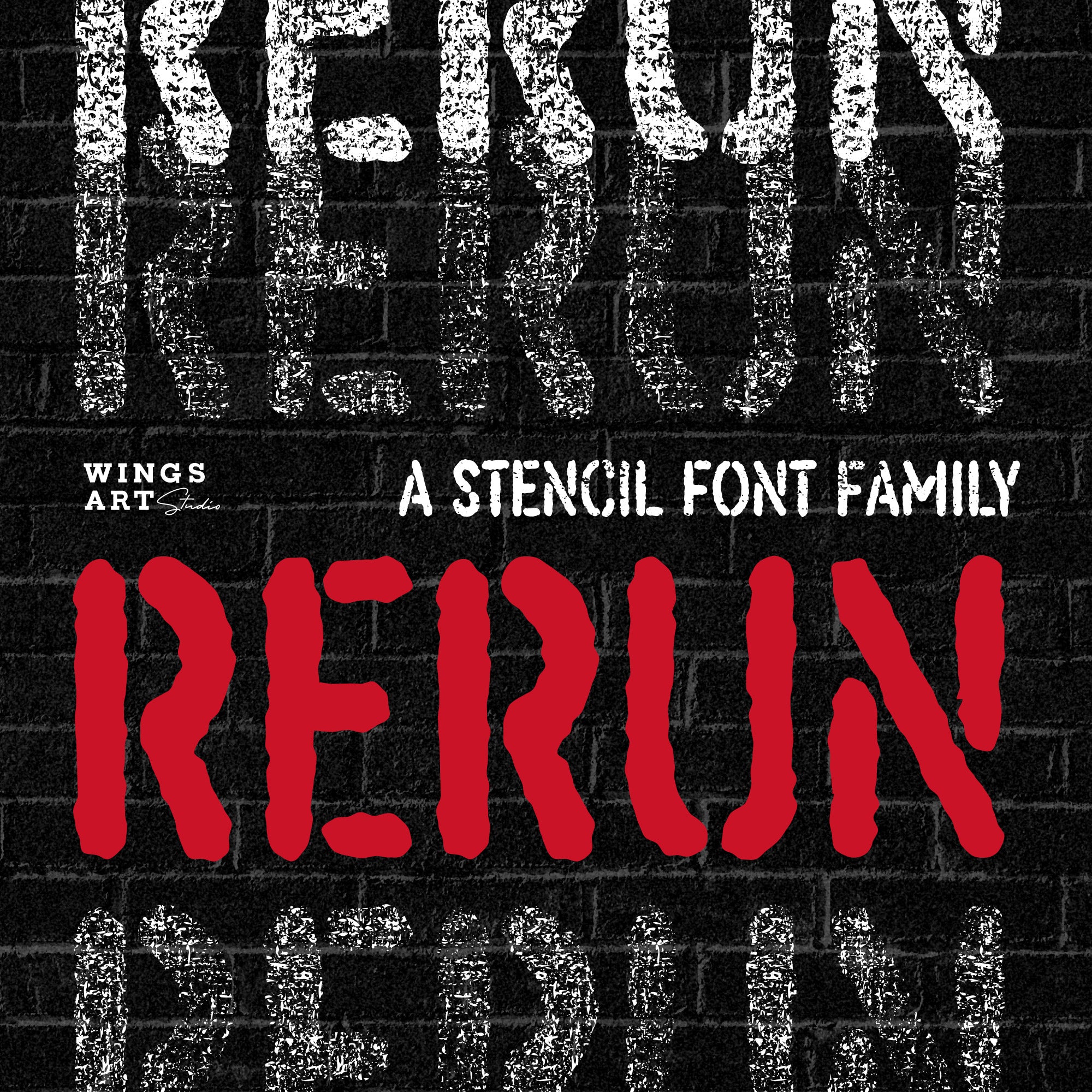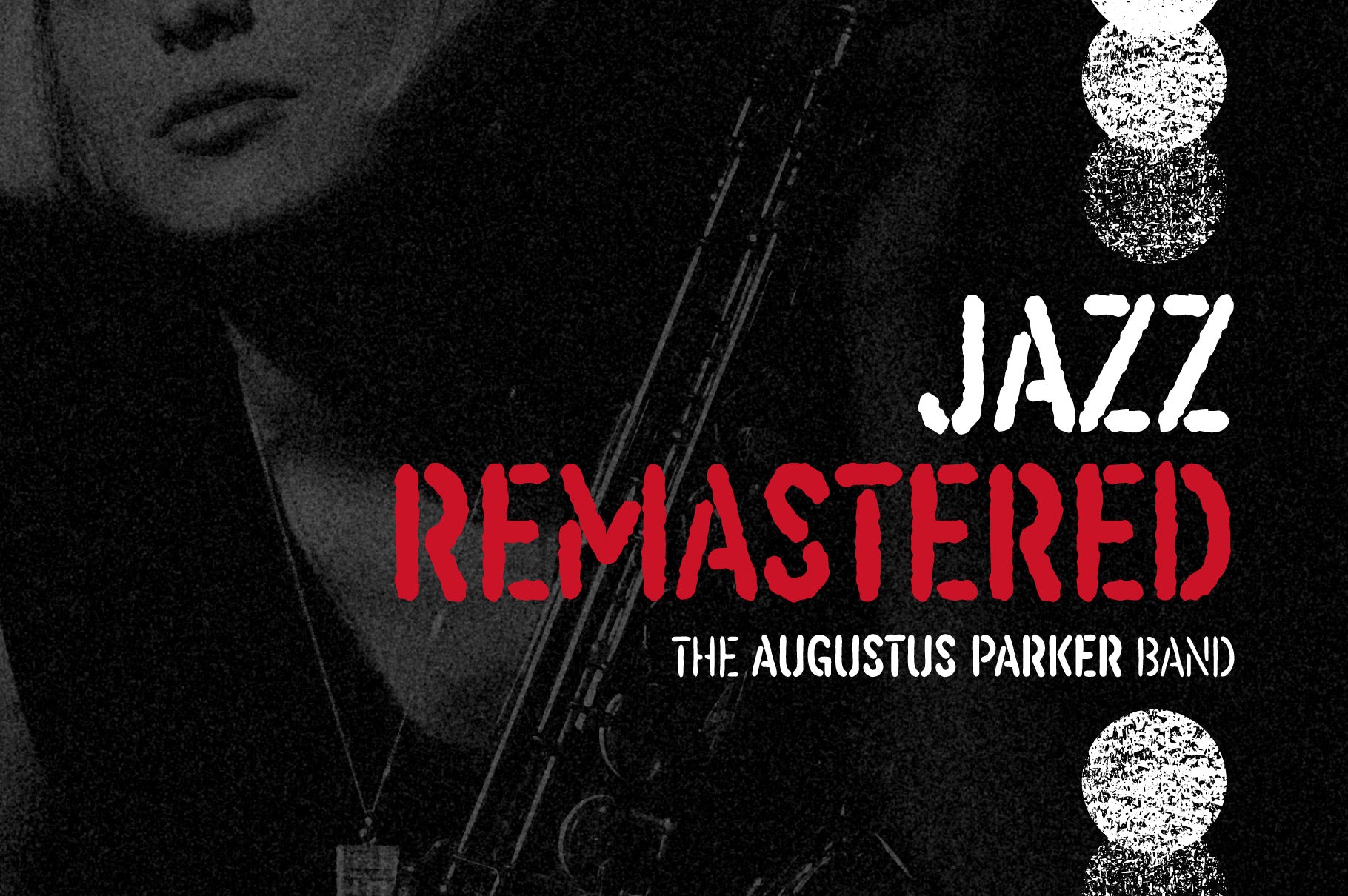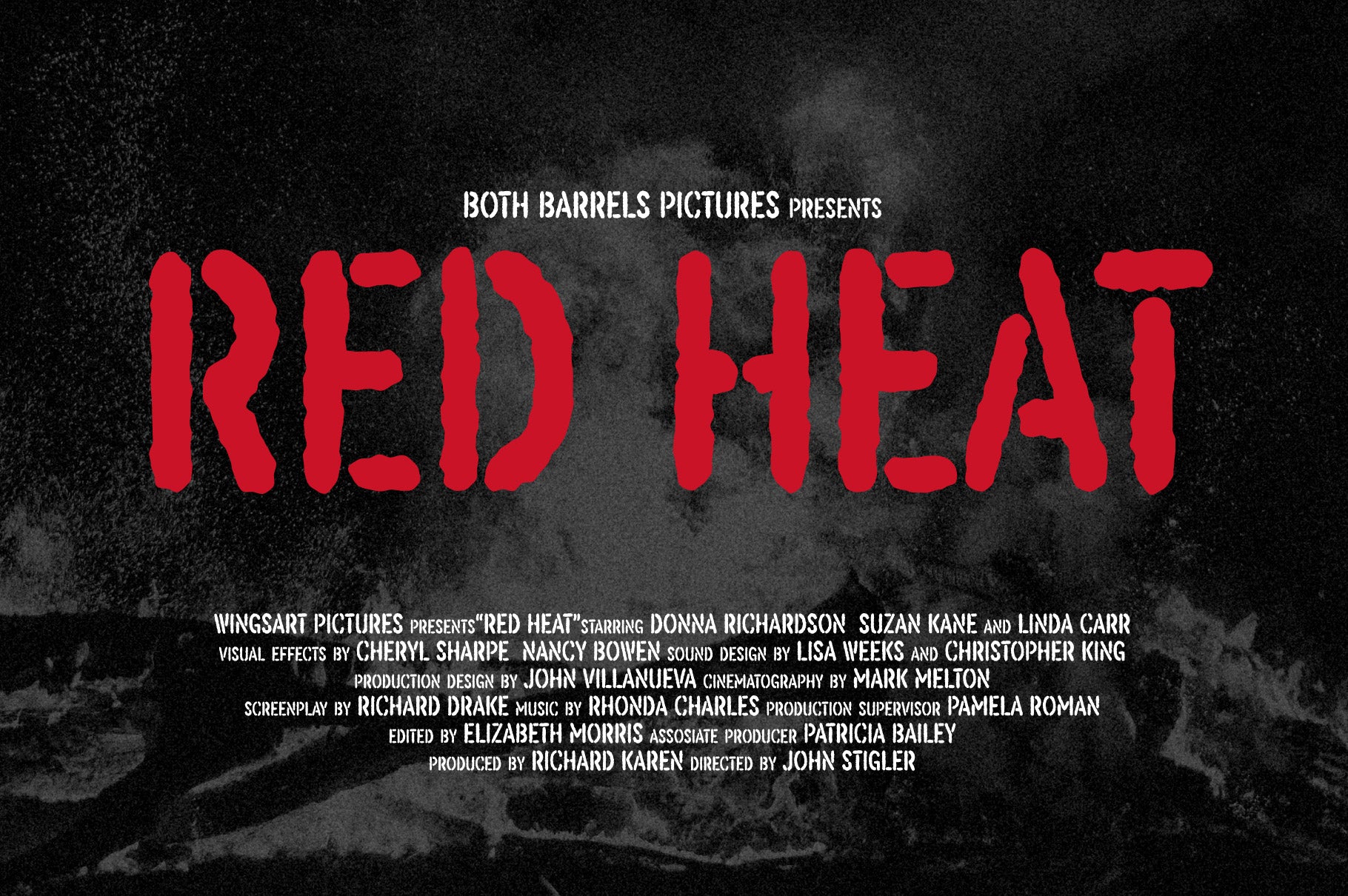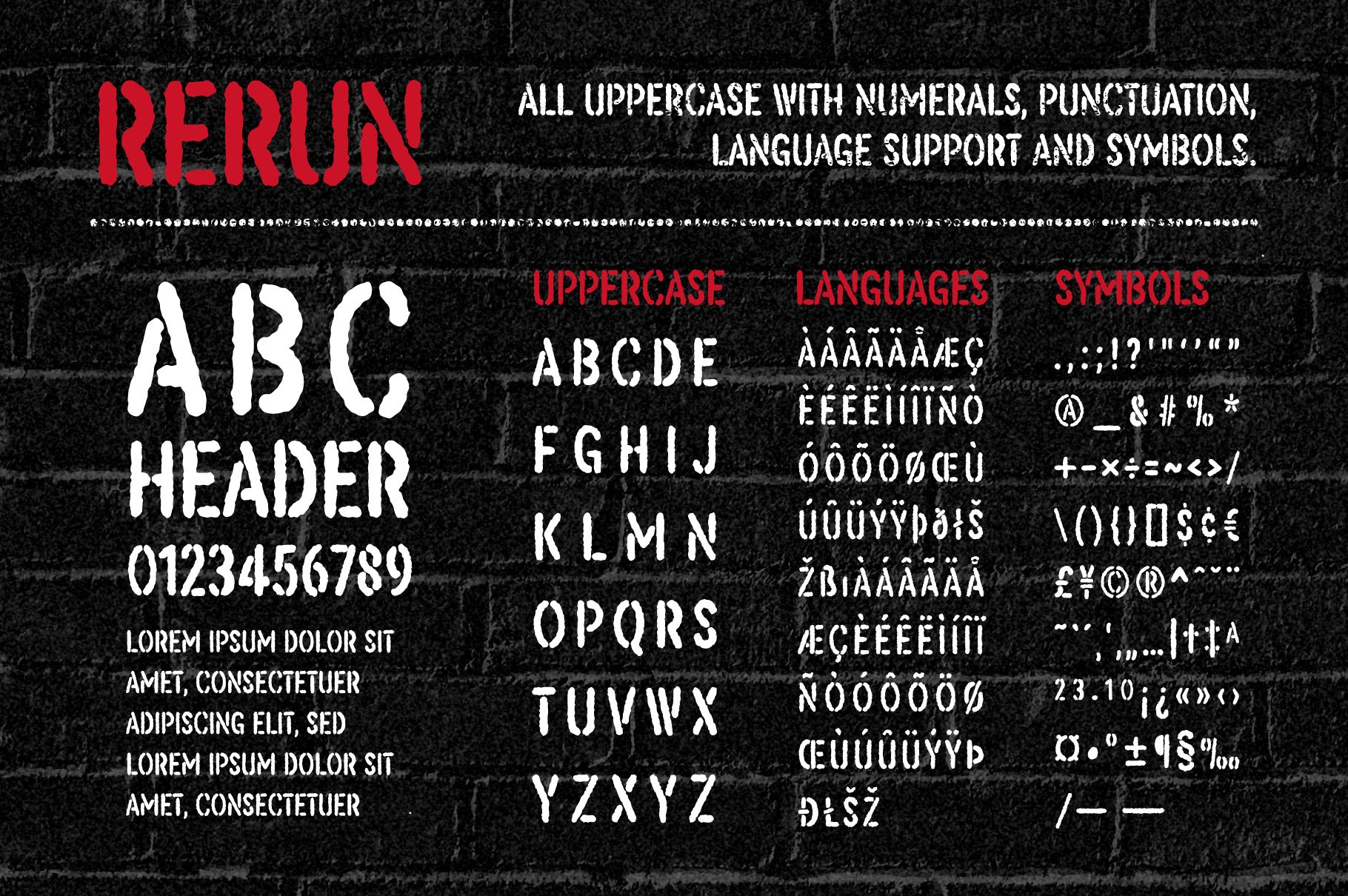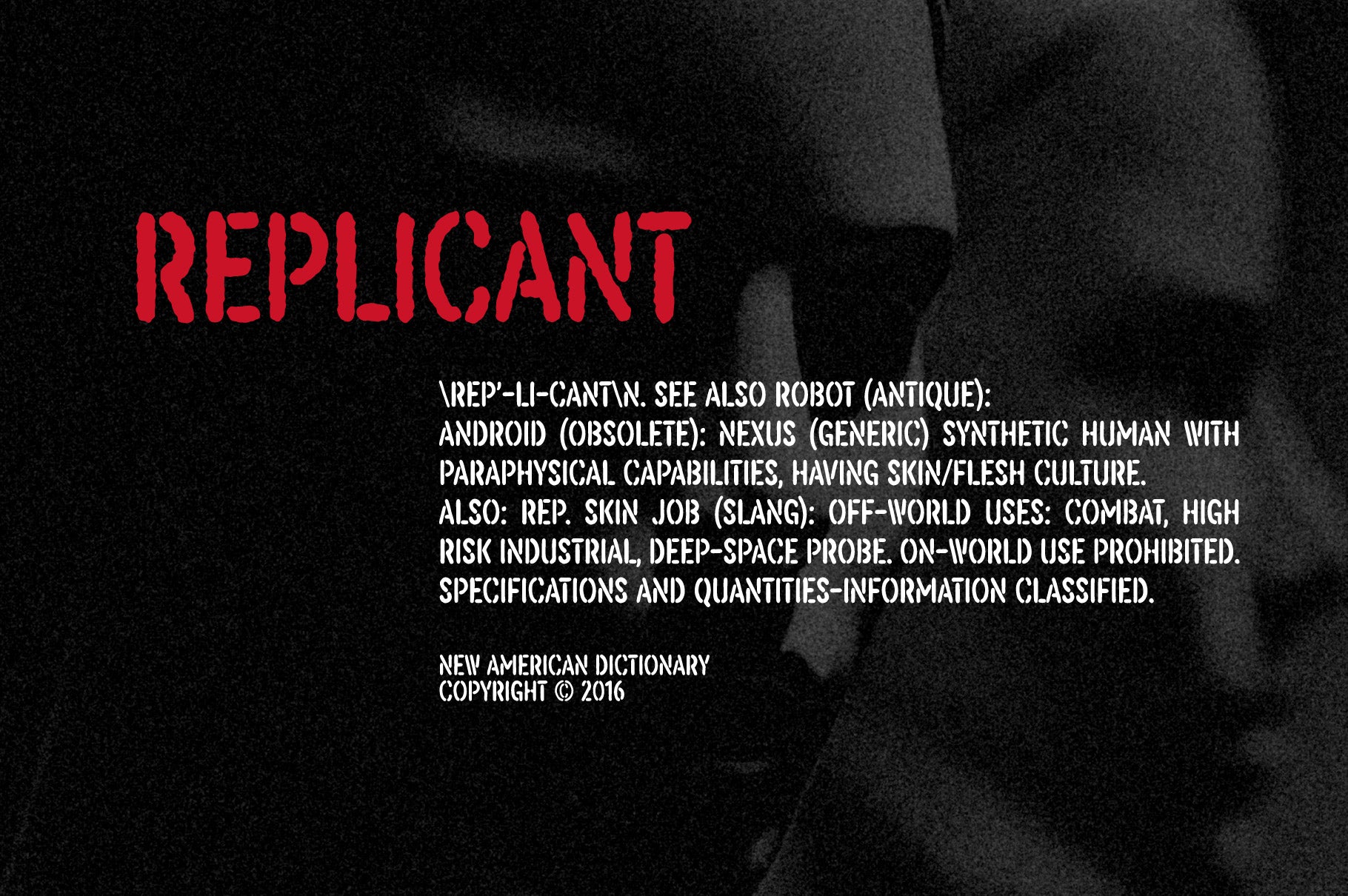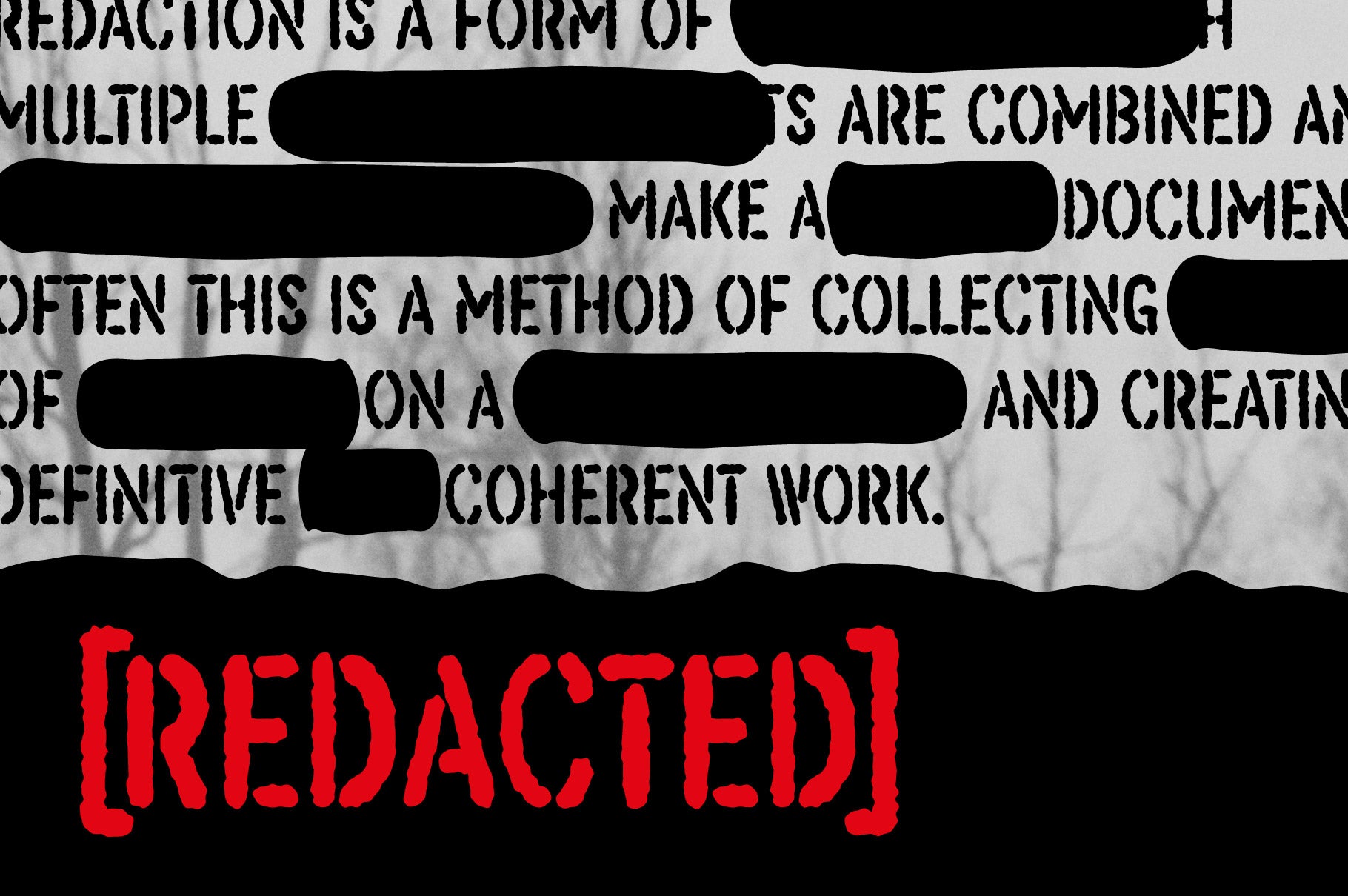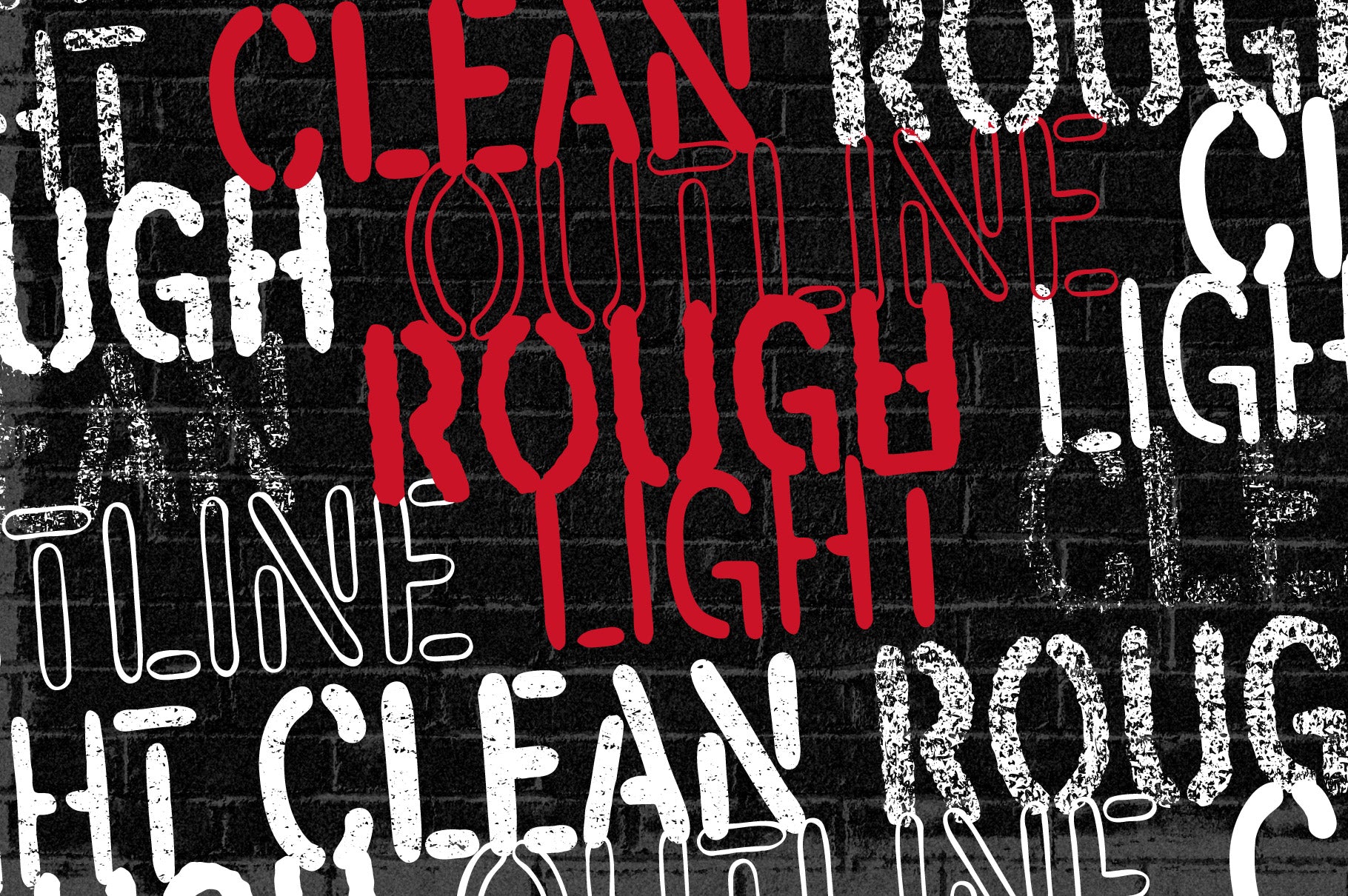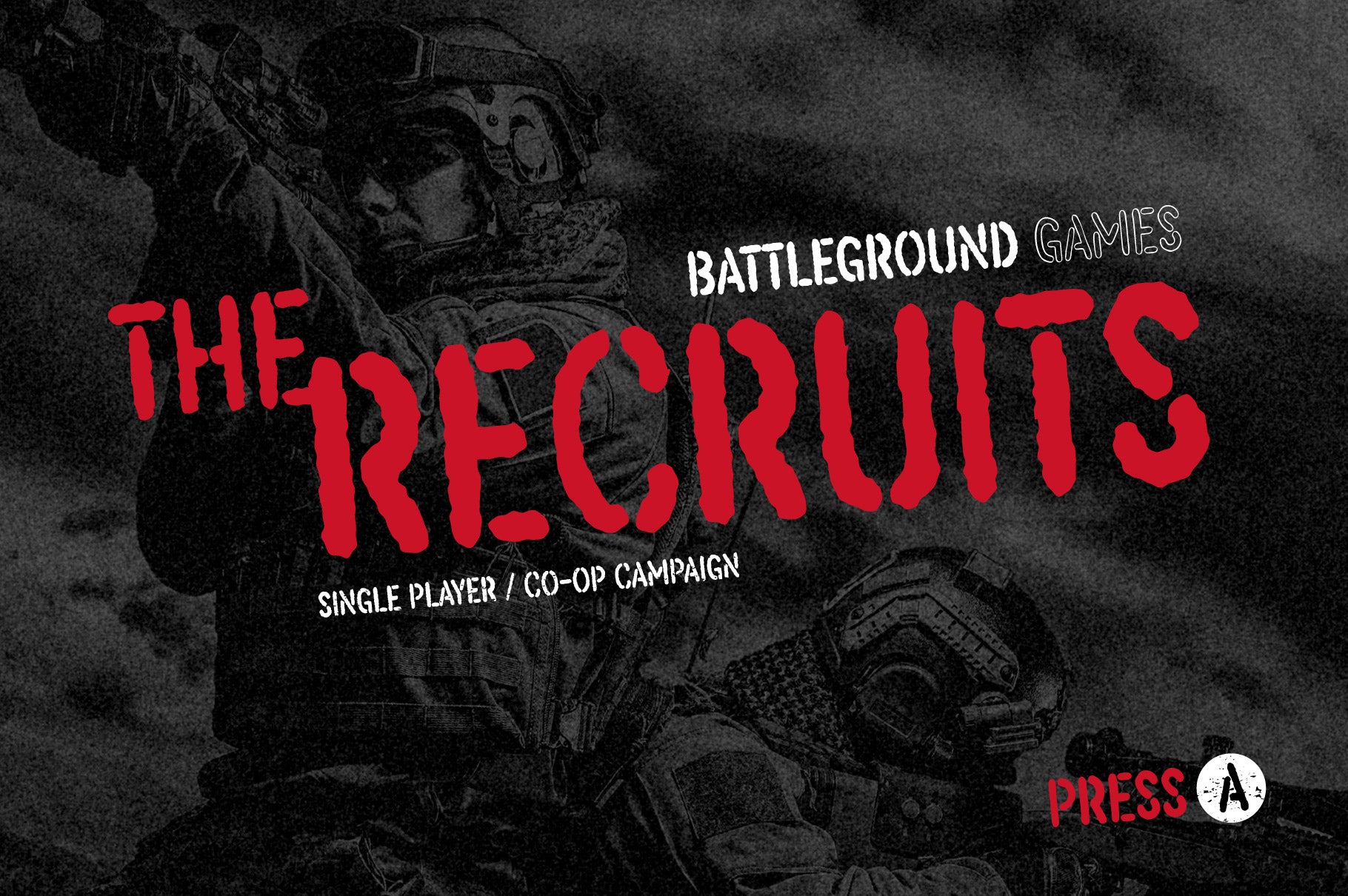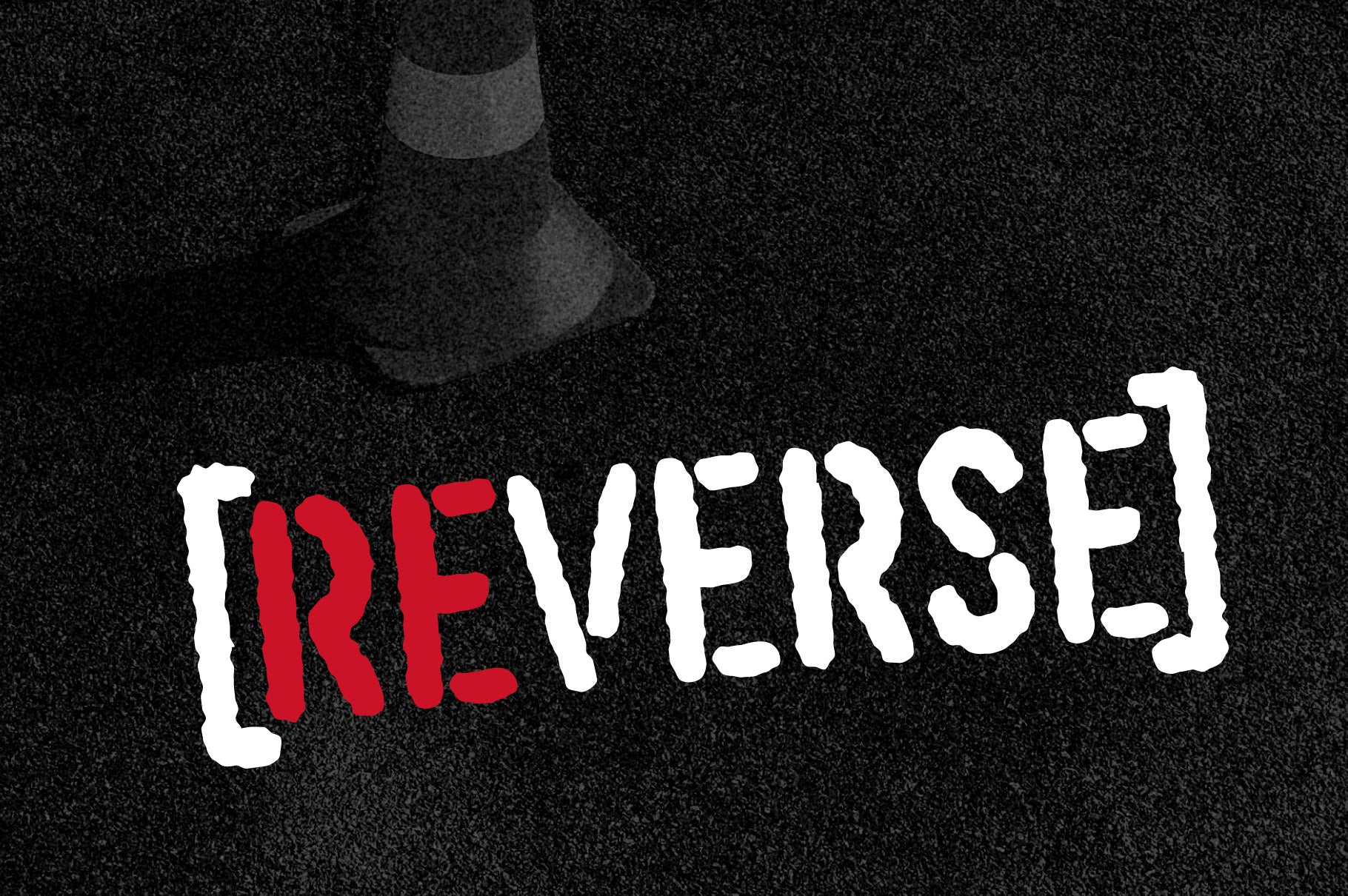
ReRun: A Stencil Font Family
ReRun: A Stencil Font Family is a hand-drawn, all-caps display font designed with a grungy urban aesthetic. It includes uppercase characters, punctuation, numerals, and language support, making it suitable for various applications in video games and film titles.
Ideal for urban-inspired graphic design and bold display typography. Perfect for video game titles, film posters, and album covers, ensuring a distinctive, hand-drawn aesthetic that captures attention and conveys a gritty, industrial vibe.